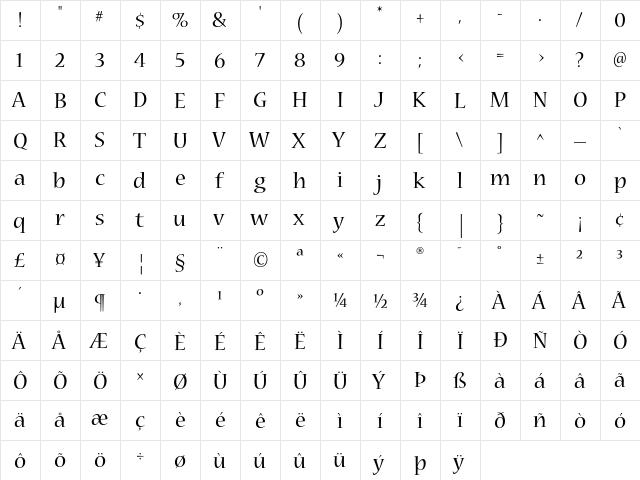
Nueva Roman
Design Context for Nueva Typeface
Nueva offers clean, dependable letterforms without strong stylistic allegiance, making it a practical choice for designers who need flexibility.